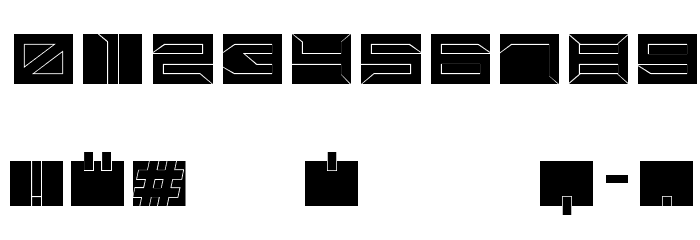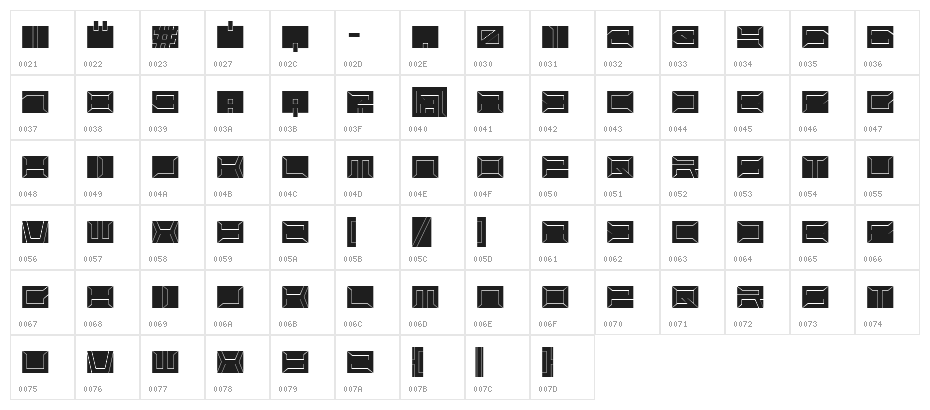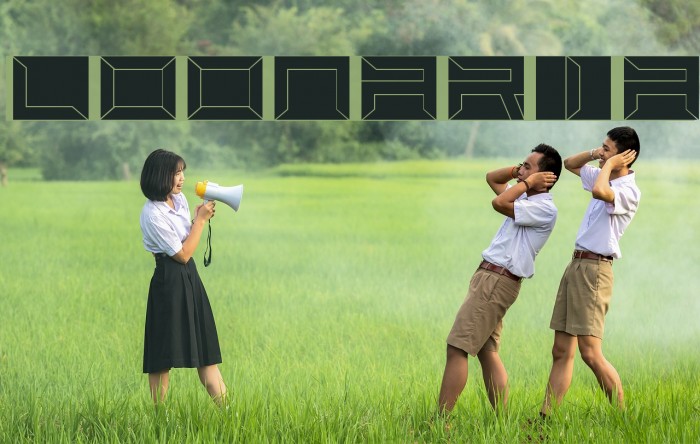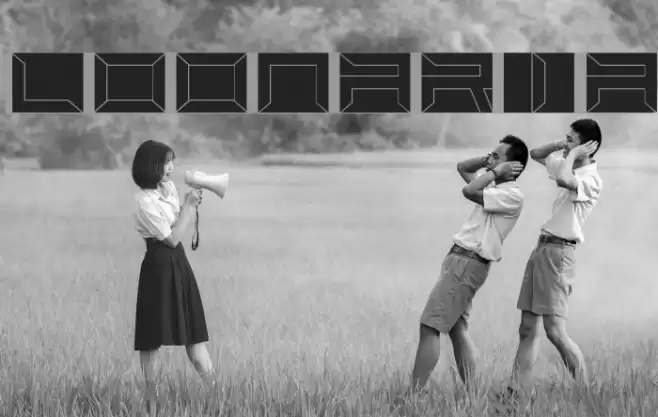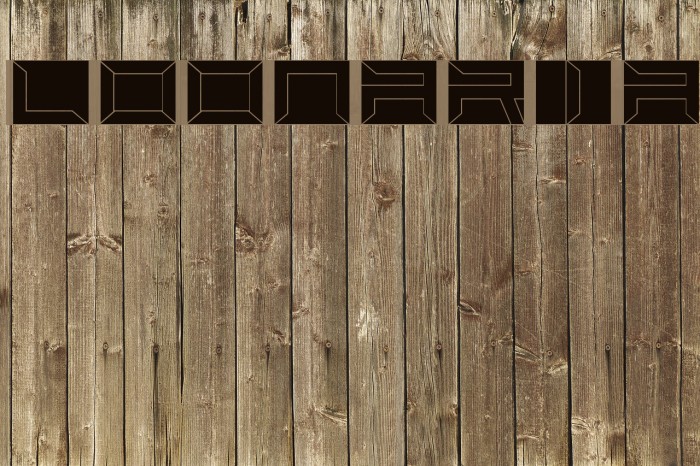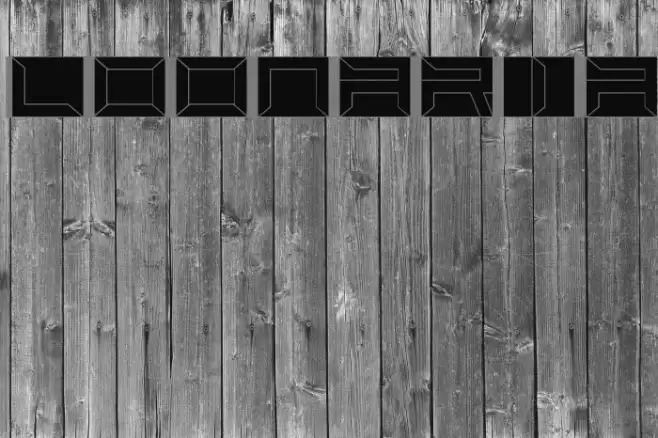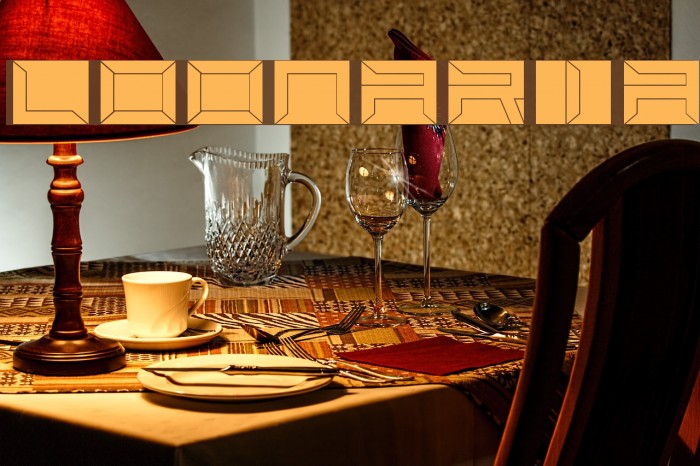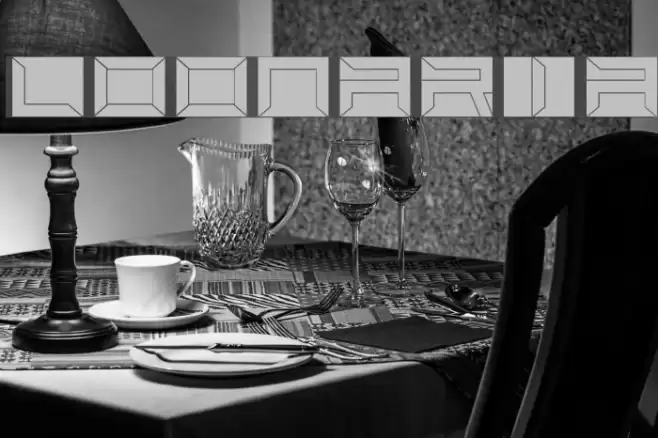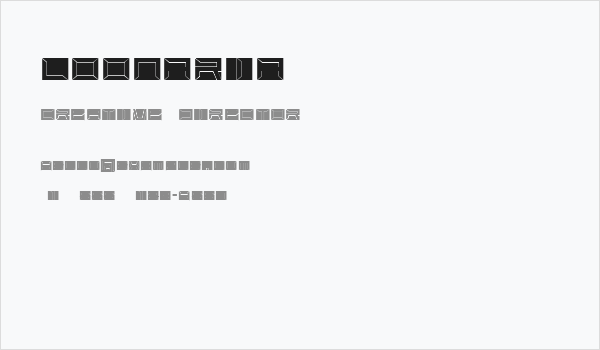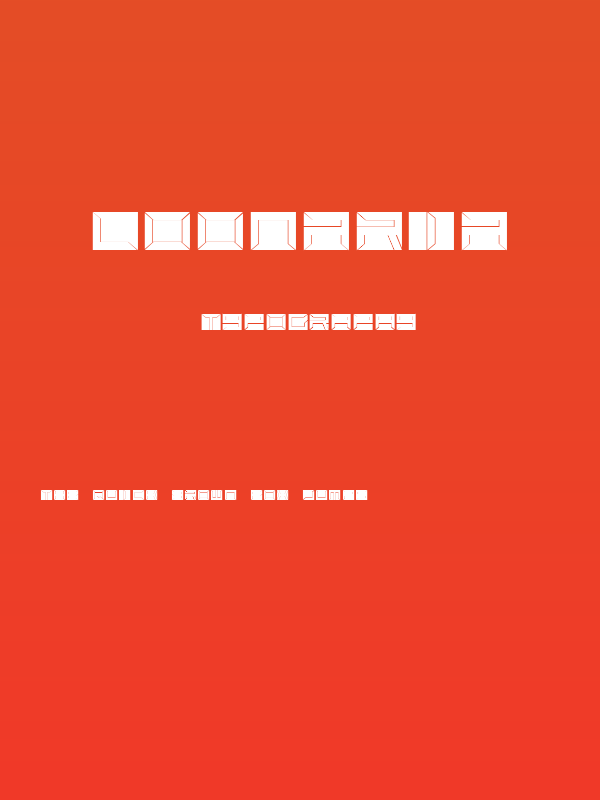
Loonaria Font
Loonaria Description
This font features a bold, geometric design with a futuristic and digital aesthetic. Each character is constructed with sharp angles and a block-like structure, giving it a distinctly modern and tech-inspired appearance. The use of negative space within the characters adds a dynamic and visually intriguing element, enhancing its digital feel. The font is highly stylized, making it suitable for projects that require a strong visual impact. Its unique design is ideal for creative and innovative applications, where a bold statement is needed.
| Proposed Projects | Ideal for tech-related branding, video game titles, sci-fi movie posters, and digital art projects. |